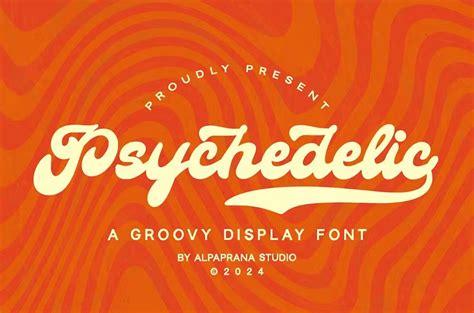
Psychedelic Script Fonts: A Groovy Guide
Hey guys! Are you ready to take a trip back to the era of peace, love, and mind-bending design? Today, we’re diving deep into the world of psychedelic script fonts . These fonts aren’t just letters; they’re visual experiences, swirling with the spirit of the ‘60s and ‘70s. Whether you’re working on a retro poster, a vintage-themed website, or just want to add some far-out flair to your project, understanding psychedelic script fonts is key. So, grab your lava lamps and let’s get started!
What Makes a Font Psychedelic?
Okay, so what exactly makes a font psychedelic? It’s not just about being curvy or swirly; it’s about capturing the essence of a cultural movement. Psychedelic fonts often feature: High contrast: Bold, contrasting colors that pop and grab attention. Distorted shapes: Letters that bend, twist, and sometimes even melt into each other. Flowing lines: Smooth, continuous strokes that create a sense of movement and fluidity. Retro inspiration: Drawing heavily from the design trends of the 1960s and 1970s. A sense of fun: These fonts aren’t meant to be serious; they’re all about expressing creativity and freedom. Think of bands like The Beatles or artists like Peter Max . Their posters and album covers were filled with typography that seemed to dance and pulse with the music. That’s the vibe we’re going for! When you’re looking for a psychedelic font , consider how well it embodies these elements. Does it make you feel like you’re stepping into a time machine? Does it evoke a sense of wonder and excitement? If so, you’re on the right track.
Top Psychedelic Script Fonts to Try
Alright, let’s get down to the nitty-gritty and explore some awesome psychedelic script fonts that you can use in your projects. These fonts are handpicked to give you a range of styles and vibes, so you’re sure to find something that fits your needs. Remember to check the licensing before you use any of these fonts in commercial projects!
1. Stay Groovy
“Stay Groovy” is the perfect font when you want to add a touch of vintage cool to your designs. With its flowing lines and bold curves, this font screams ‘60s and ‘70s vibes. The letters connect seamlessly, creating a sense of movement and rhythm. It’s ideal for posters, album covers, and any project that needs a retro feel. Plus, the font includes alternate characters and ligatures, giving you plenty of options to customize your text. Imagine using this for a music festival poster or a vintage-themed party invitation. It instantly transports your audience back in time.
2. Wild Spirit
“Wild Spirit” captures the untamed energy of the psychedelic era . Its uneven baseline and quirky letterforms give it a unique, hand-drawn feel. This font is perfect for projects that need a bit of rebellious spirit. Think of band logos, t-shirt designs, or even a book cover. The rough edges and imperfect lines add to its charm, making it stand out from more polished fonts. It’s a great choice when you want to convey a sense of authenticity and individuality.
3. Liquid Dreams
As the name suggests, “Liquid Dreams” has a flowing, almost melting quality. This font is all about creating a sense of movement and fluidity. The letters seem to drip and swirl, evoking the feeling of a psychedelic experience. Use this font for projects that need a touch of the surreal. It’s perfect for website headers, social media graphics, or even a packaging design. The unique letterforms will definitely catch the eye and leave a lasting impression.
4. Magic Trip
“Magic Trip” is a whimsical and playful font that’s full of personality. Its rounded letterforms and bouncy baseline give it a cheerful and energetic vibe. This font is ideal for projects that need a touch of fun and lightheartedness. Think of children’s books, greeting cards, or even a logo for a creative business. The font includes a variety of alternate characters and swashes, allowing you to create unique and eye-catching designs.
5. Groovy Script
If you’re looking for a classic psychedelic script font , “Groovy Script” is a great choice. Its elegant curves and flowing lines exude sophistication and style. This font is perfect for projects that need a touch of retro elegance. Use it for wedding invitations, product packaging, or even a high-end fashion brand. The font’s timeless appeal ensures that it will never go out of style.
How to Use Psychedelic Fonts Effectively
Okay, now that you’ve got some killer psychedelic fonts to choose from, let’s talk about how to use them effectively. These fonts are powerful tools, but they can also be overwhelming if not used correctly. Here are some tips to help you make the most of them:
1. Less is More
Psychedelic fonts are attention-grabbing, so you don’t need to overuse them. In fact, using them sparingly can actually make them more impactful. Try using a psychedelic font for headlines or logos, and then pair it with a simpler font for body text. This will create a balanced and visually appealing design.
2. Consider the Context
Think about the overall message you’re trying to convey. Psychedelic fonts are great for retro-themed projects, but they might not be appropriate for more serious or corporate designs. Make sure the font aligns with the tone and style of your project.
3. Play with Colors
Color is a crucial element of psychedelic design . Experiment with bold, contrasting colors to create a vibrant and eye-catching effect. Think of neon pinks, electric blues, and sunshine yellows. You can also use gradients and color overlays to add depth and dimension to your text.
Conclusion: Embrace the Groovy Vibes
So there you have it, guys! A comprehensive guide to psychedelic script fonts . From understanding what makes a font psychedelic to exploring some of the best options available and learning how to use them effectively, you’re now equipped to add some serious groovy vibes to your designs. Remember, psychedelic fonts are all about expressing creativity and having fun, so don’t be afraid to experiment and let your imagination run wild. Whether you’re working on a retro poster, a vintage-themed website, or just want to add some far-out flair to your project, these fonts are sure to make a statement. So go ahead, embrace the psychedelic era and let your designs take a magic trip ! Just keep it groovy!